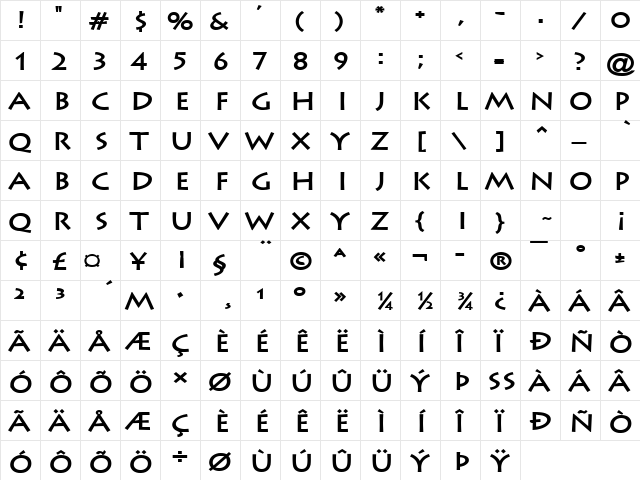
Liste Wide Bold
Design Context for Liste Wide Typeface
Liste Wide takes a measured approach to typography — its balanced proportions and neutral character make it a reliable workhorse for both digital and print work. Its bold stroke weight gives it real presence on the page.